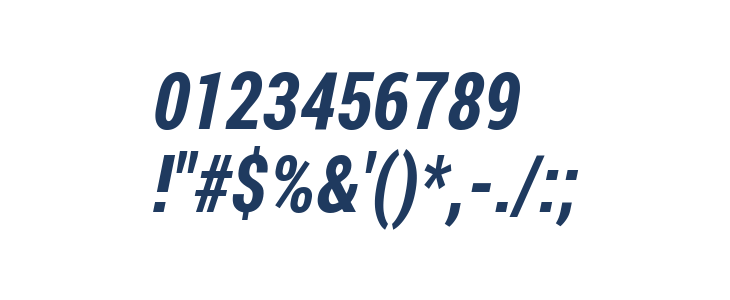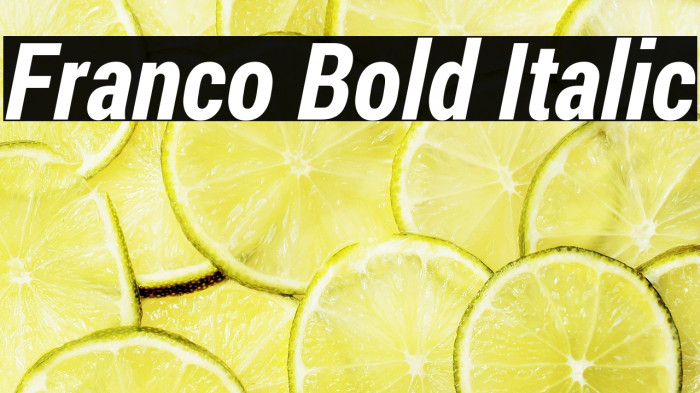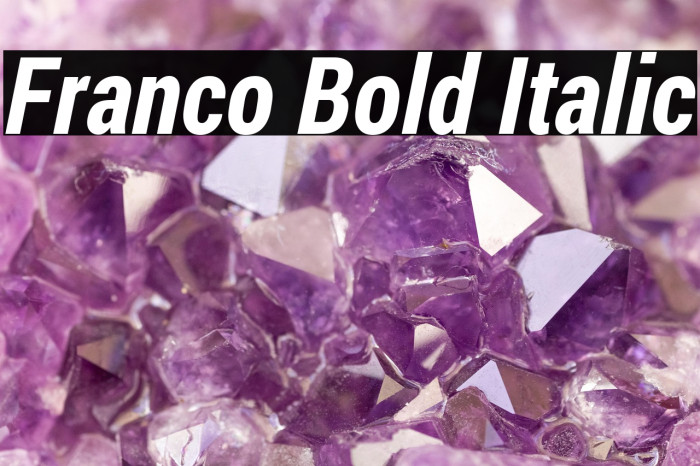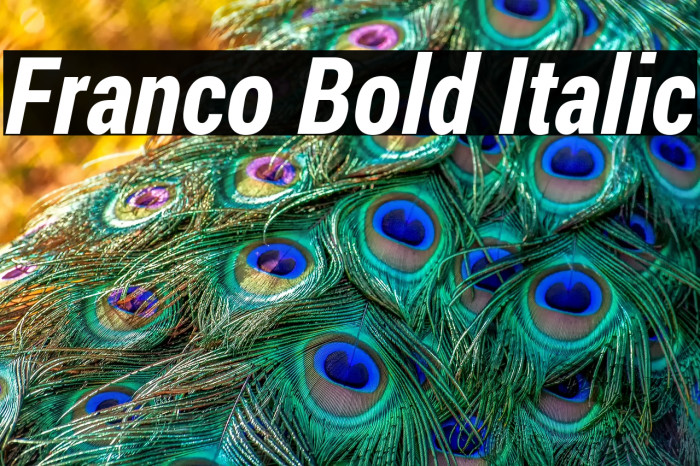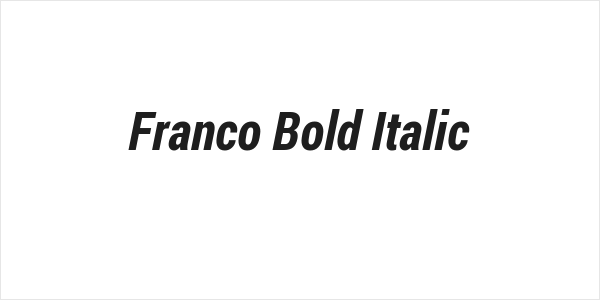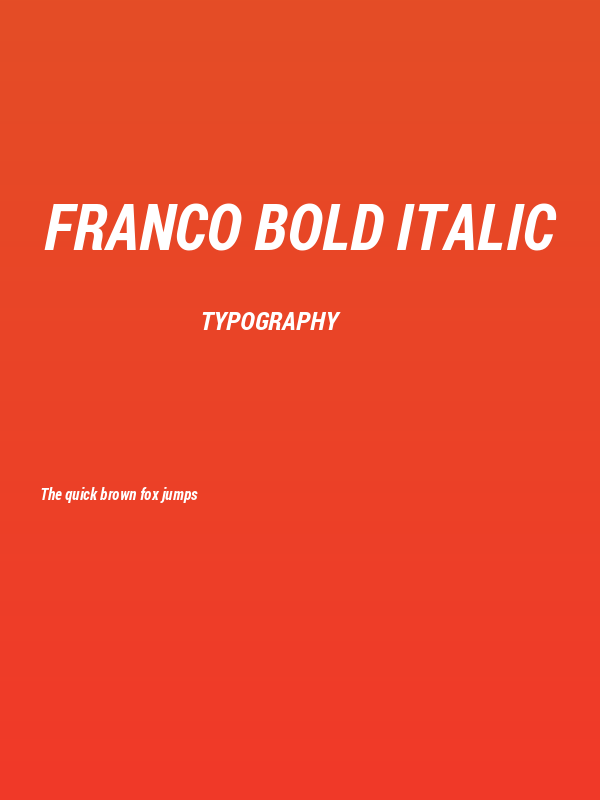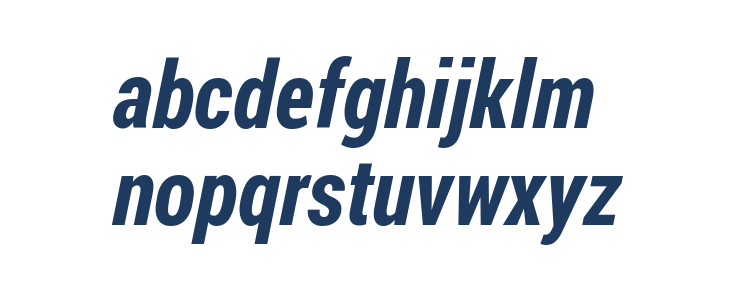
Franco Bold Italic Font
Franco Bold Italic Description
This font exhibits a bold and italicized style, characterized by its strong and assertive appearance. The letters are slightly slanted, adding a dynamic and forward-moving feel. The strokes are thick and consistent, providing a sense of stability and confidence. The uppercase and lowercase letters maintain a uniform width, ensuring readability and balance. The numerals are clear and bold, matching the overall robust design. Special characters are well-defined, complementing the font's bold nature. This font is suitable for making impactful statements and grabbing attention.